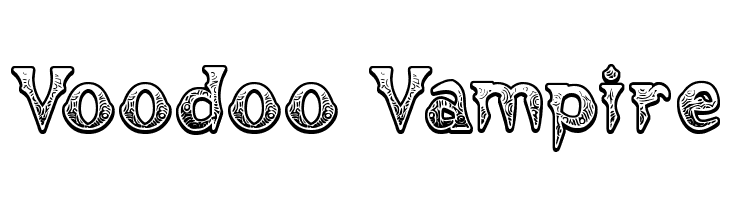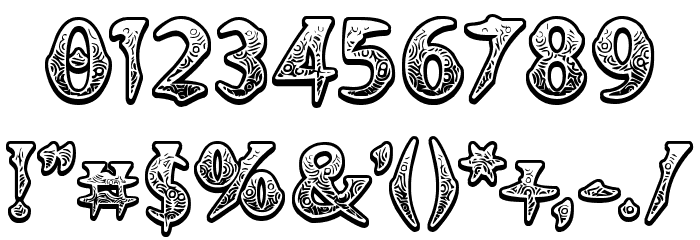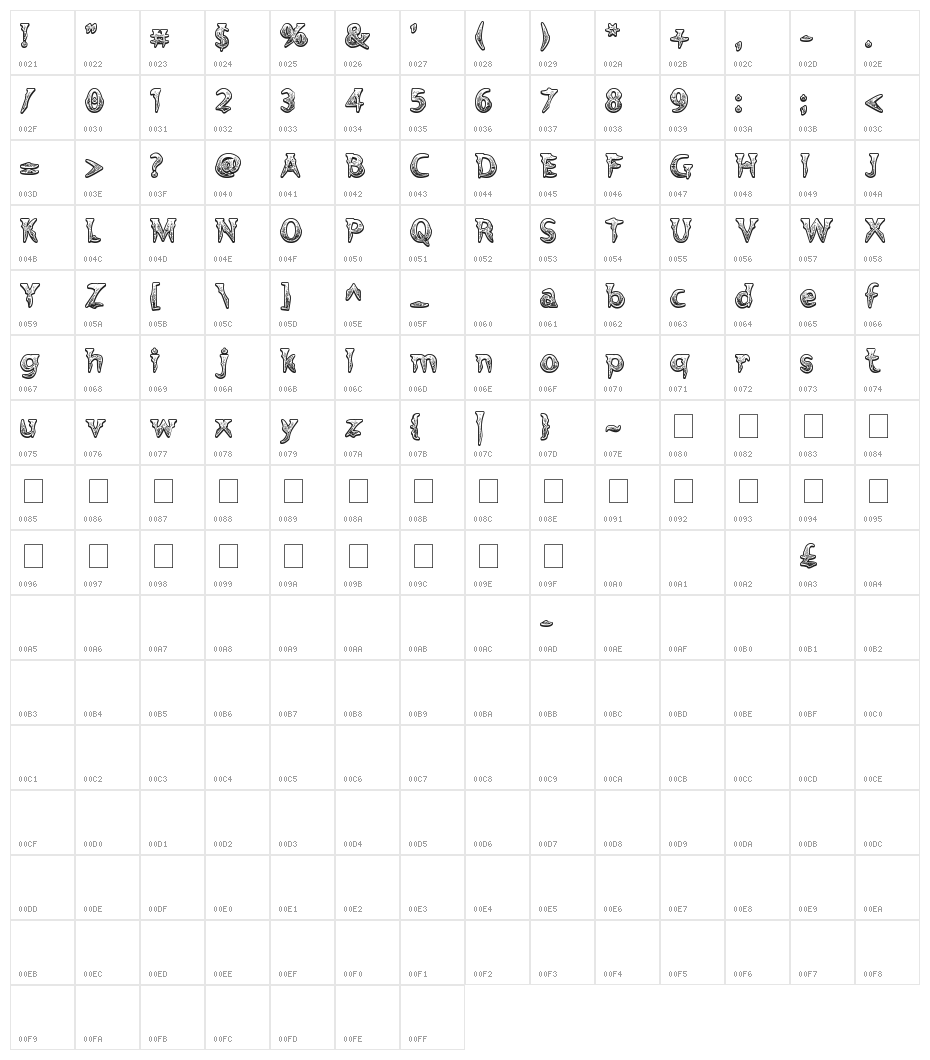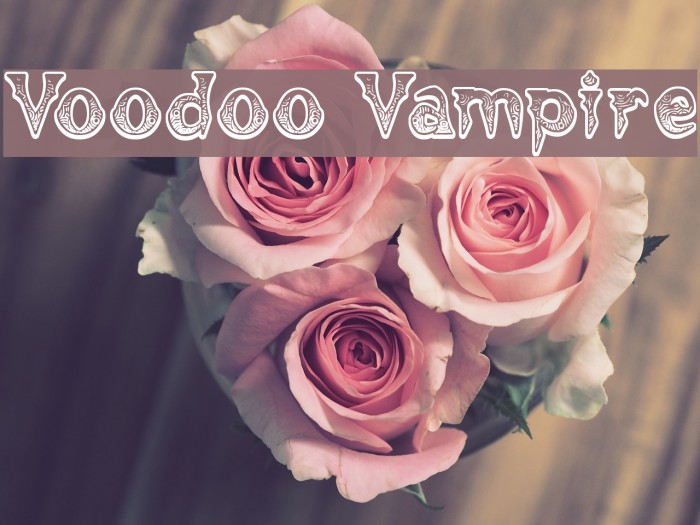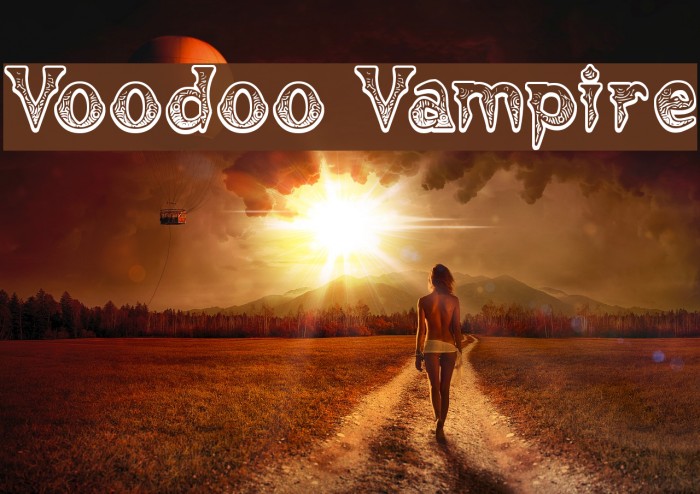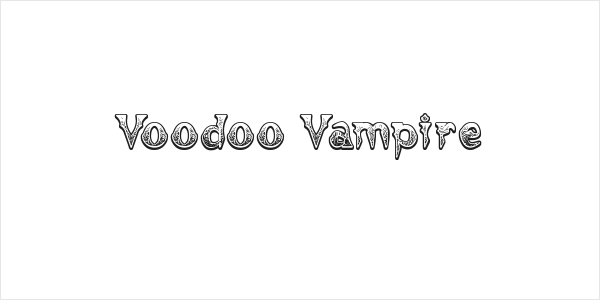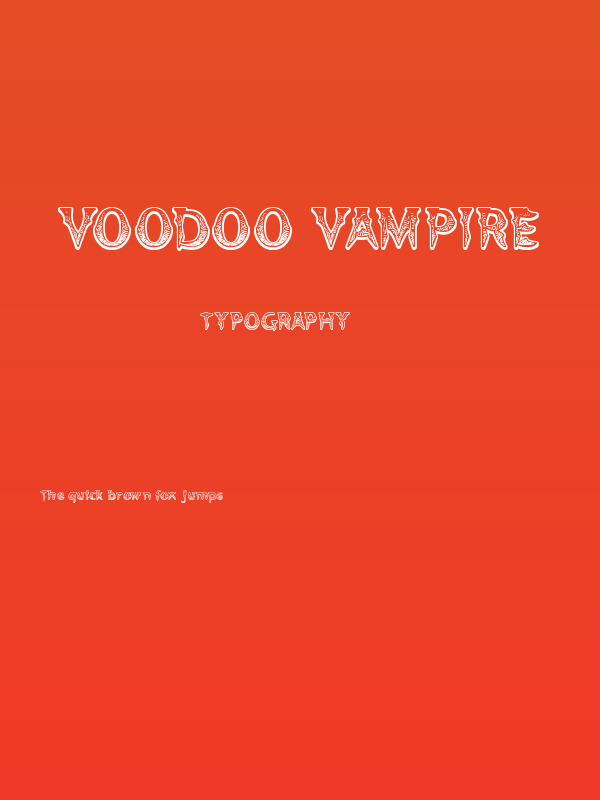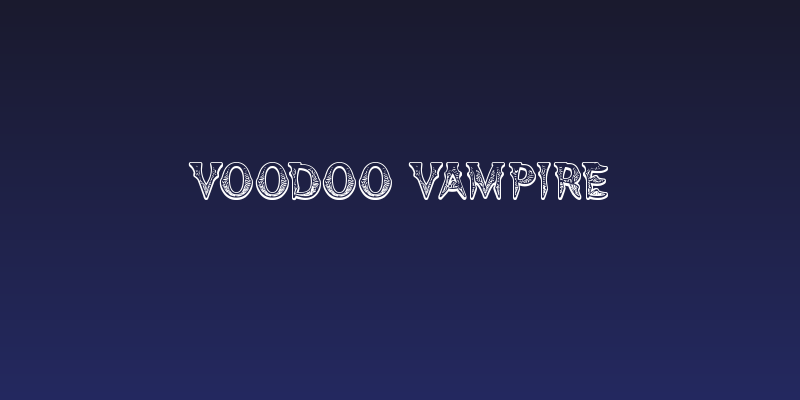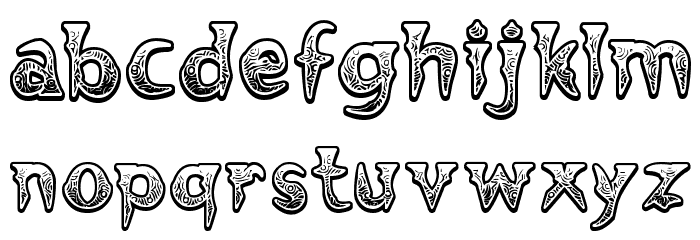
Voodoo Vampire Font
Voodoo Vampire Description
This font features a unique and intricate design with a spooky, mystical vibe. Each character is adorned with decorative patterns reminiscent of ancient symbols and tribal art, creating a sense of mystery and enchantment. The bold outlines and detailed inner designs give it a striking appearance, making it ideal for projects that require a touch of the supernatural or gothic. The font's playful yet eerie style is perfect for Halloween-themed events, horror movie posters, or any creative work that seeks to evoke a sense of magic and wonder.
| Proposed Projects | Ideal for Halloween events, horror movie posters, mystical-themed invitations, and fantasy book covers. |